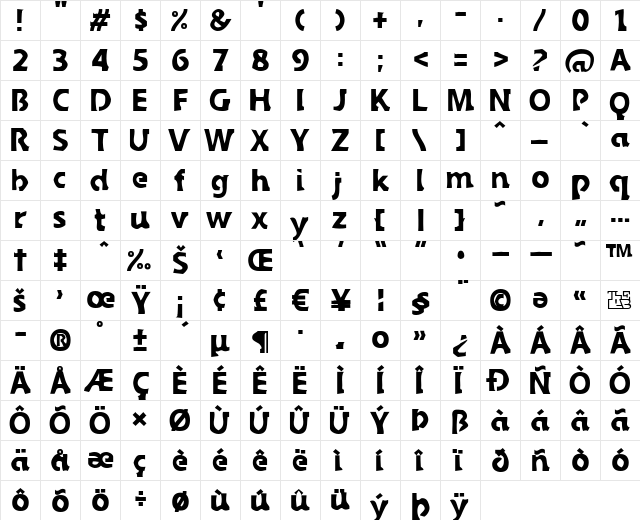
Sledge Regular
Design Context for Sledge Typeface
Sledge takes a measured approach to typography — its balanced proportions and neutral character make it a reliable workhorse for both digital and print work.